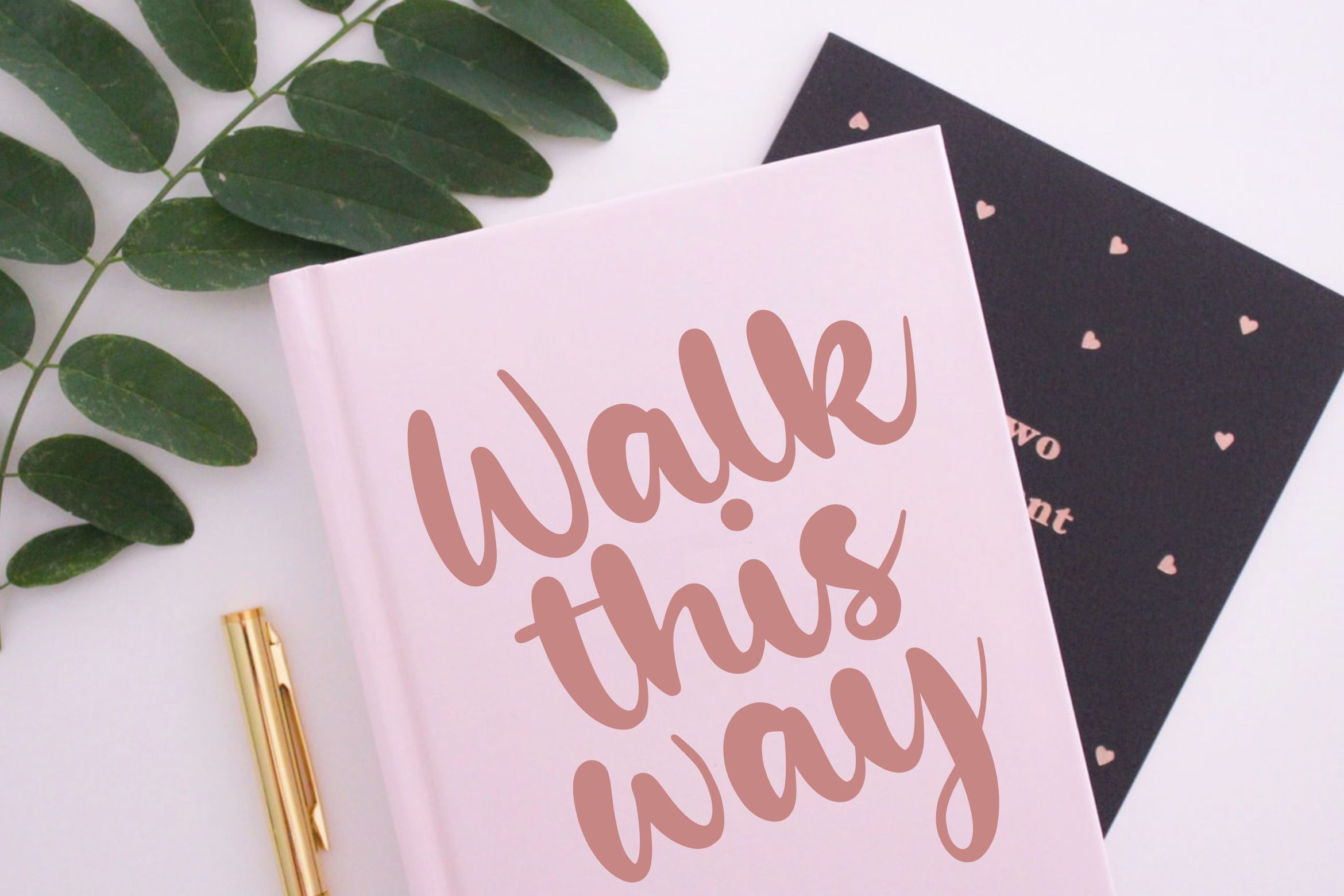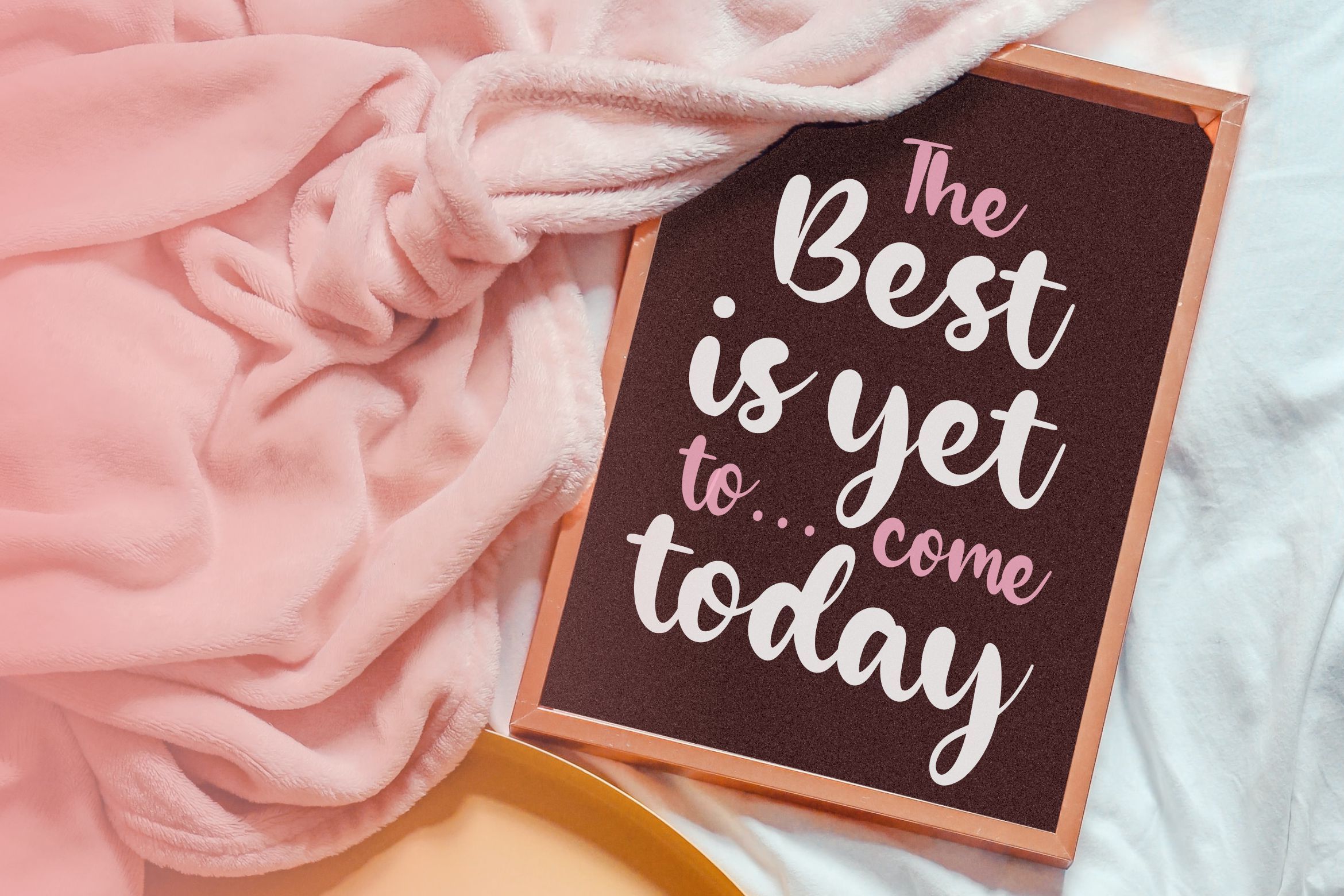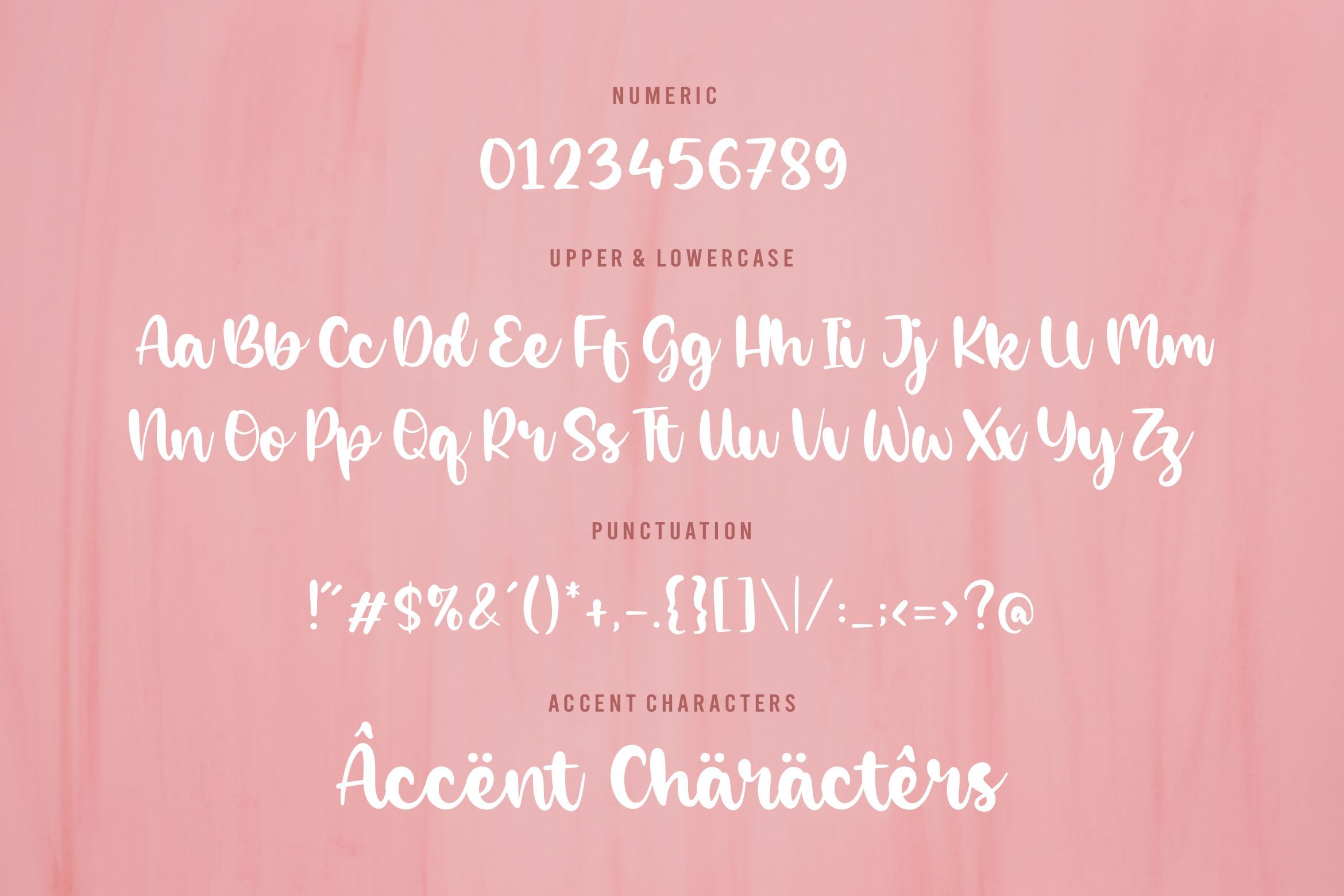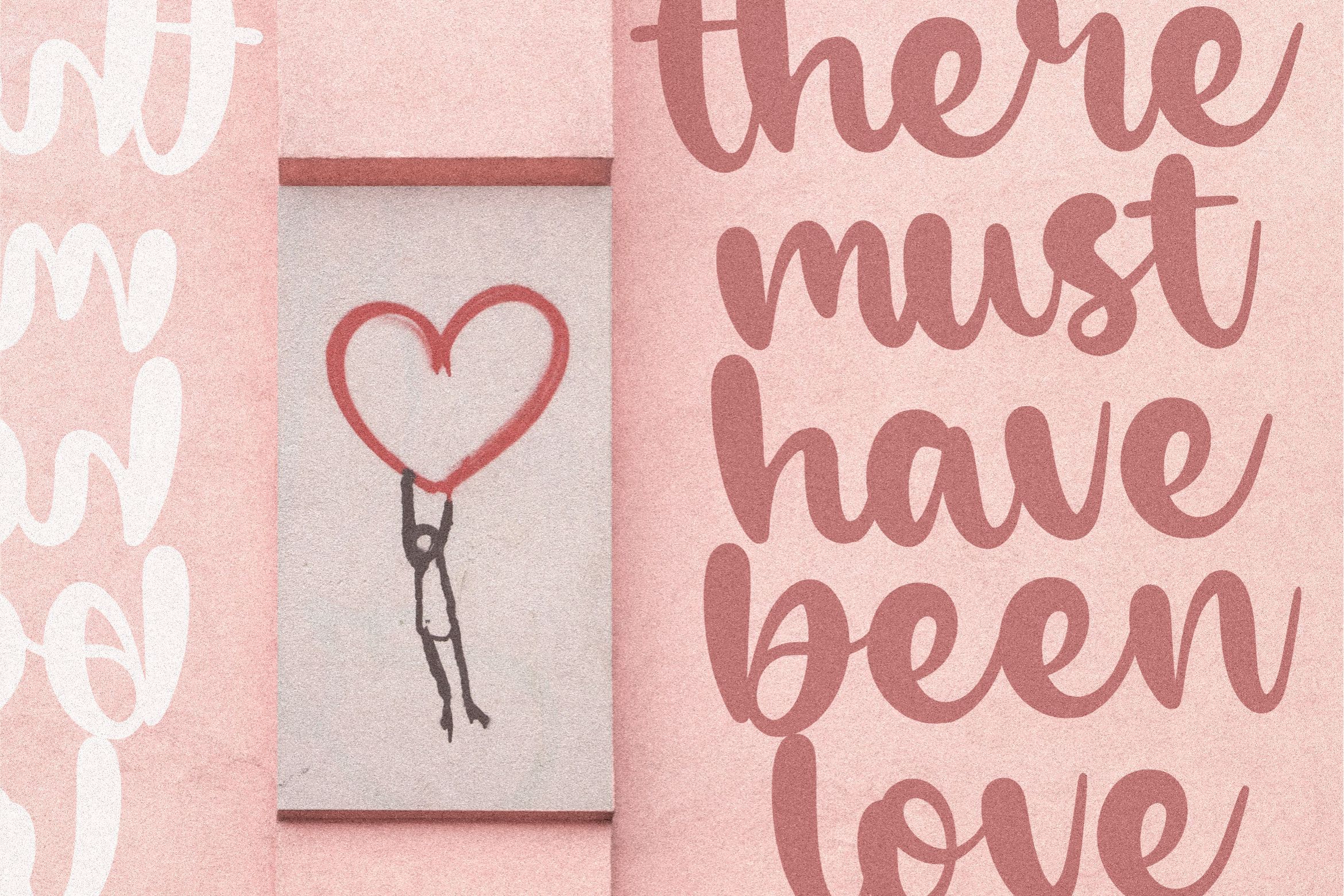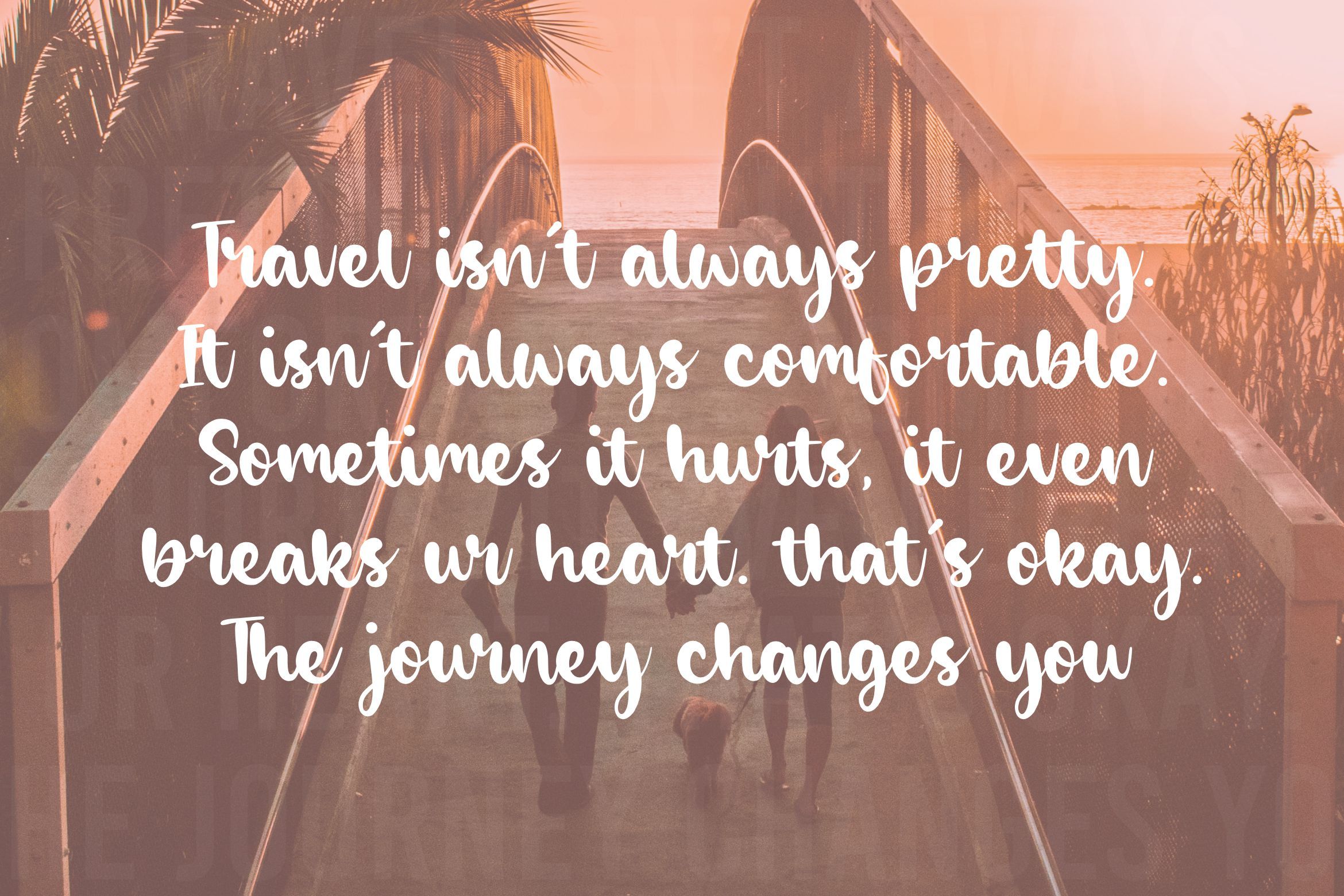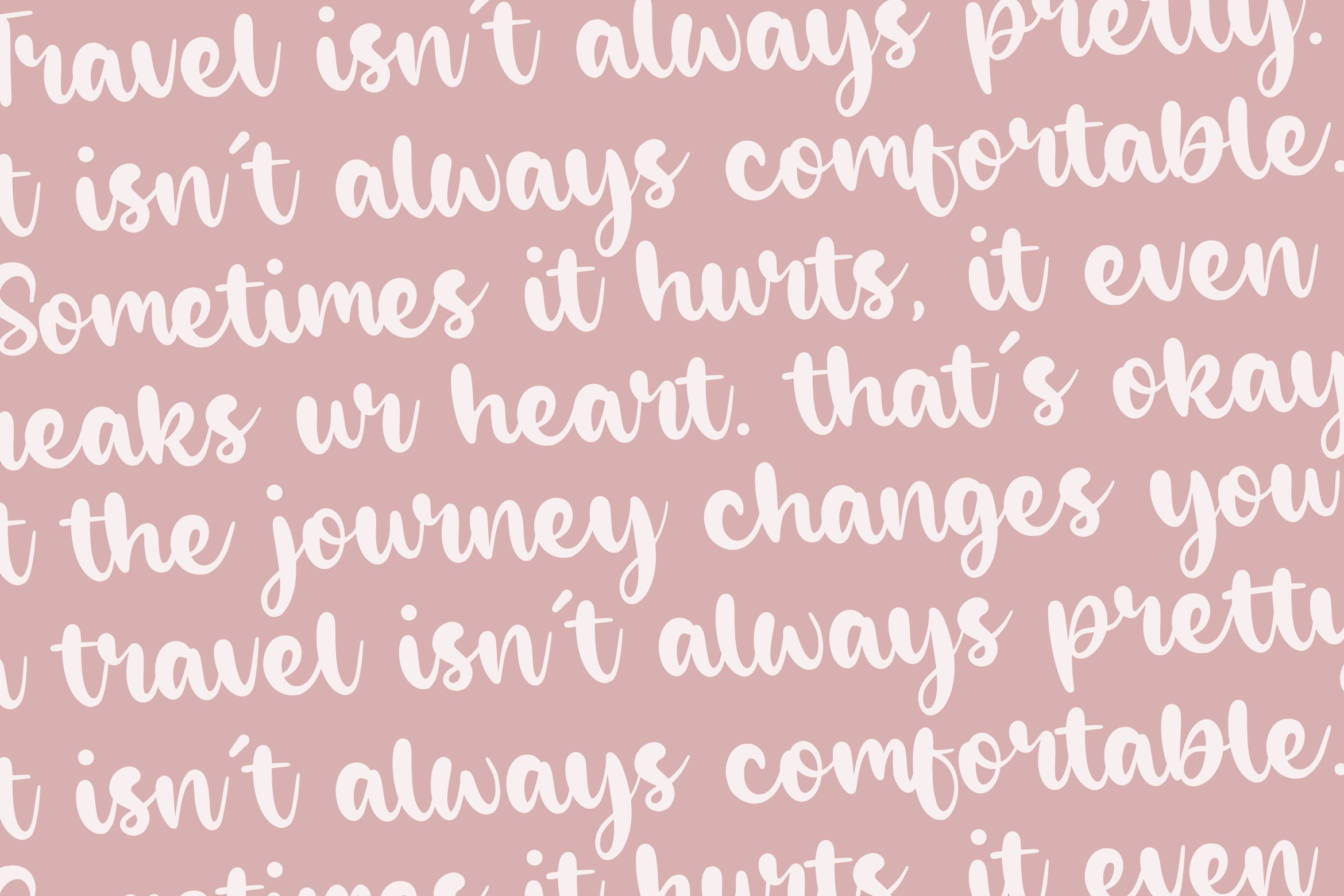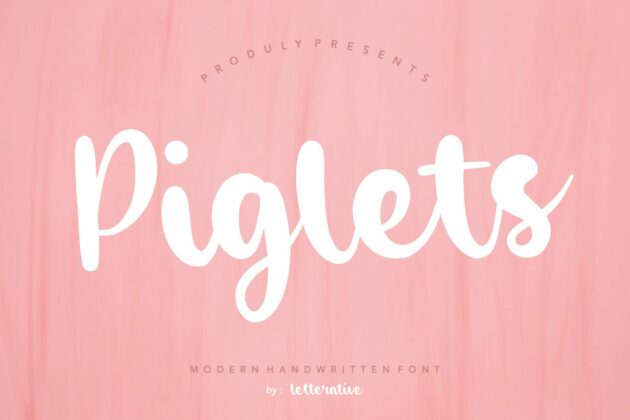
Piglets Modern Handwritten Font
Introducing by Letterative Studio : Piglets Font Piglets is a Modern Handwritten Font Piglets is a sweet and brushed handwritten font. This gentle font will look gorgeous on a variety of design ideas. It will add a joyful and romantic touch to each of your projects! This font includes : TTF and OTF Piglets also multilingual support Enjoy the font! Feel free to comment or feedback Send me PM or email Thank you!